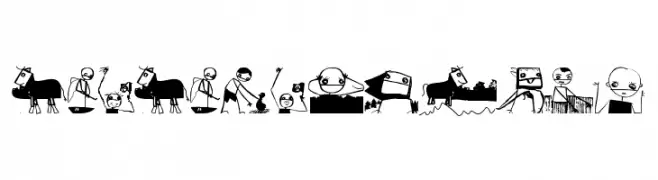
Abstract, organism-inspired dingbat font with surreal, decorative glyphs.
Expressive, hand-drawn illustrative font with cartoon faces and abstract elements.
A whimsical, decorative font featuring abstract, cartoon-like faces and figures.
An artistic and abstract font with whimsical, surreal sketches for each character.
Whimsical, illustrative font made of cartoon and surrealist scenes.
A whimsical collection of artistic symbols featuring eyes and abstract shapes.
A playful, cartoonish illustrative font made of humorous scenes.